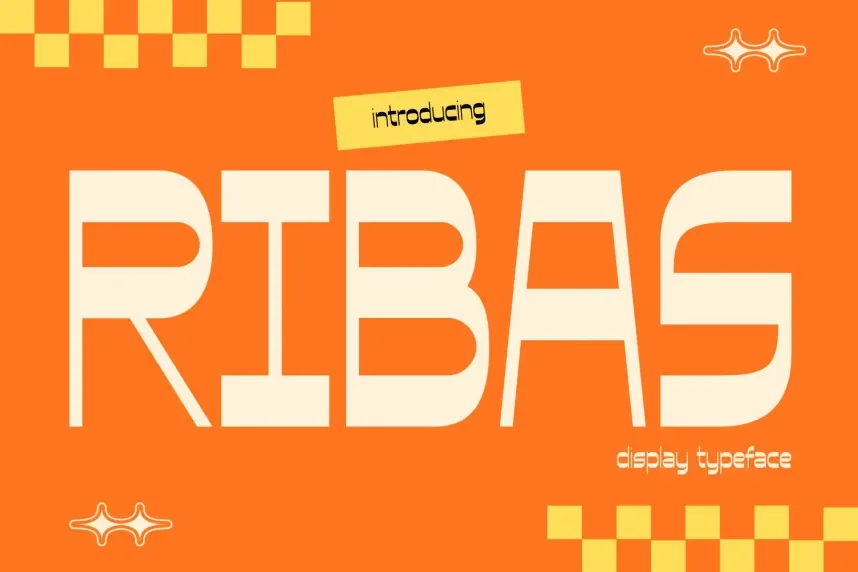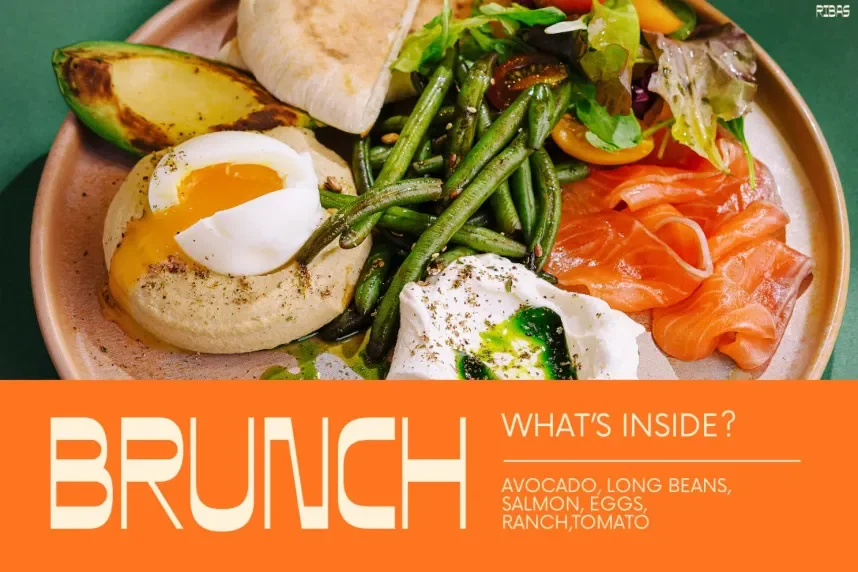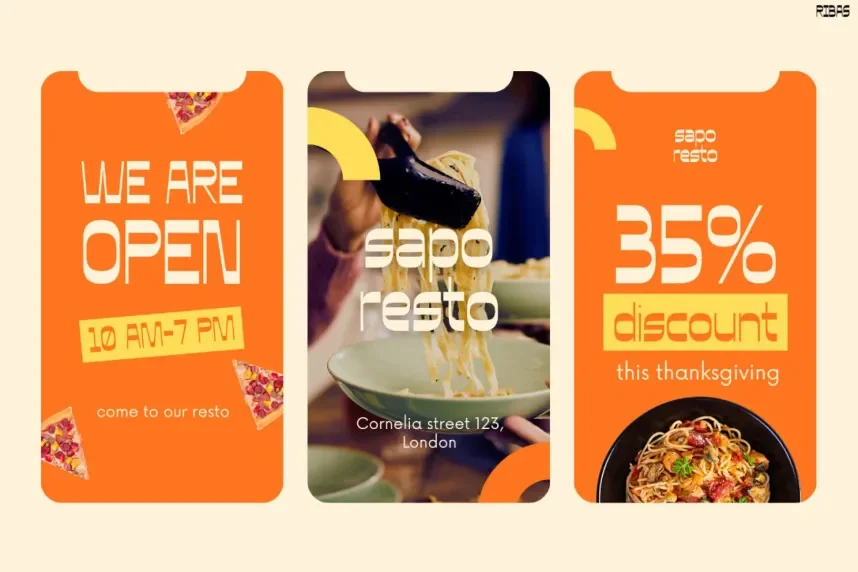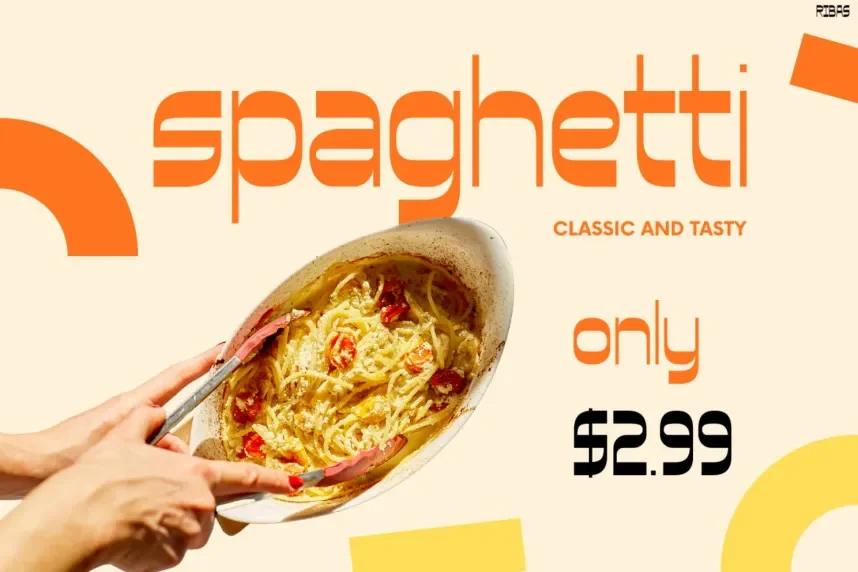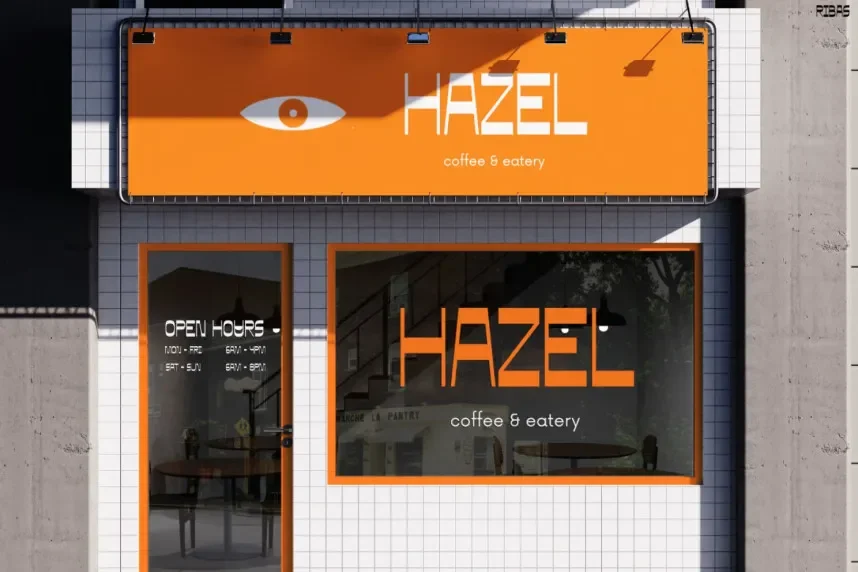
Ribas Display Font is a display typeface designed for short text and visual emphasis. It features thick strokes, compact spacing, and solid letter construction. The font relies on low stroke contrast and firm shapes, which helps maintain clarity in large-scale use. Its structure supports bold titles rather than long paragraphs, making it suitable for attention-focused design work.